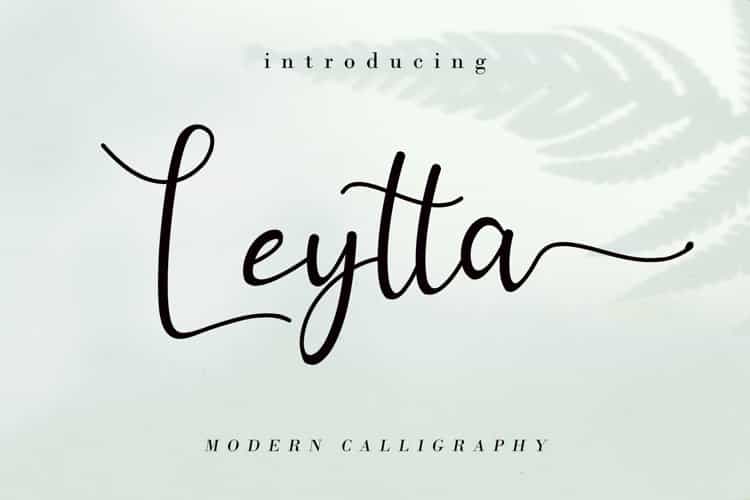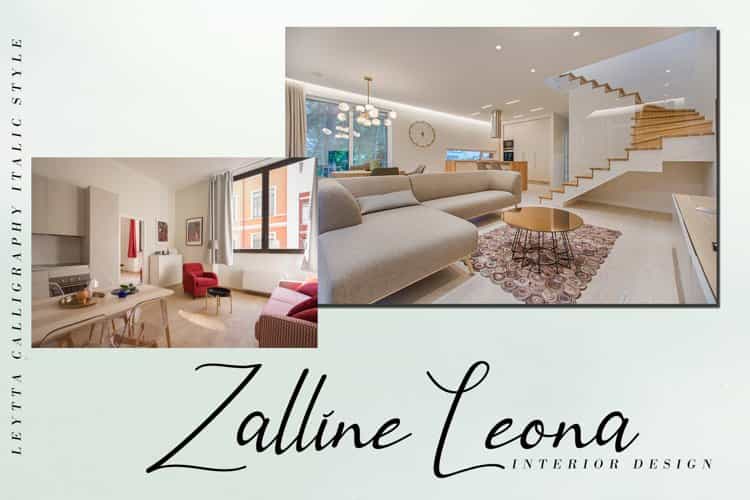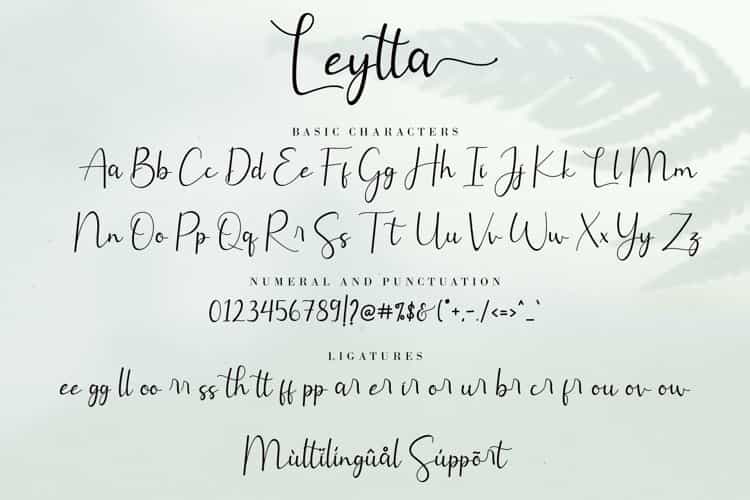
Leytta is a fresh and virgin two in one calligraphy typeface that has beautiful characters and swaying base! Basically, Leytta Font is ideal for crafting beautiful wedding designs, invitations, mood boards, social media templates, and for your editorial designs.